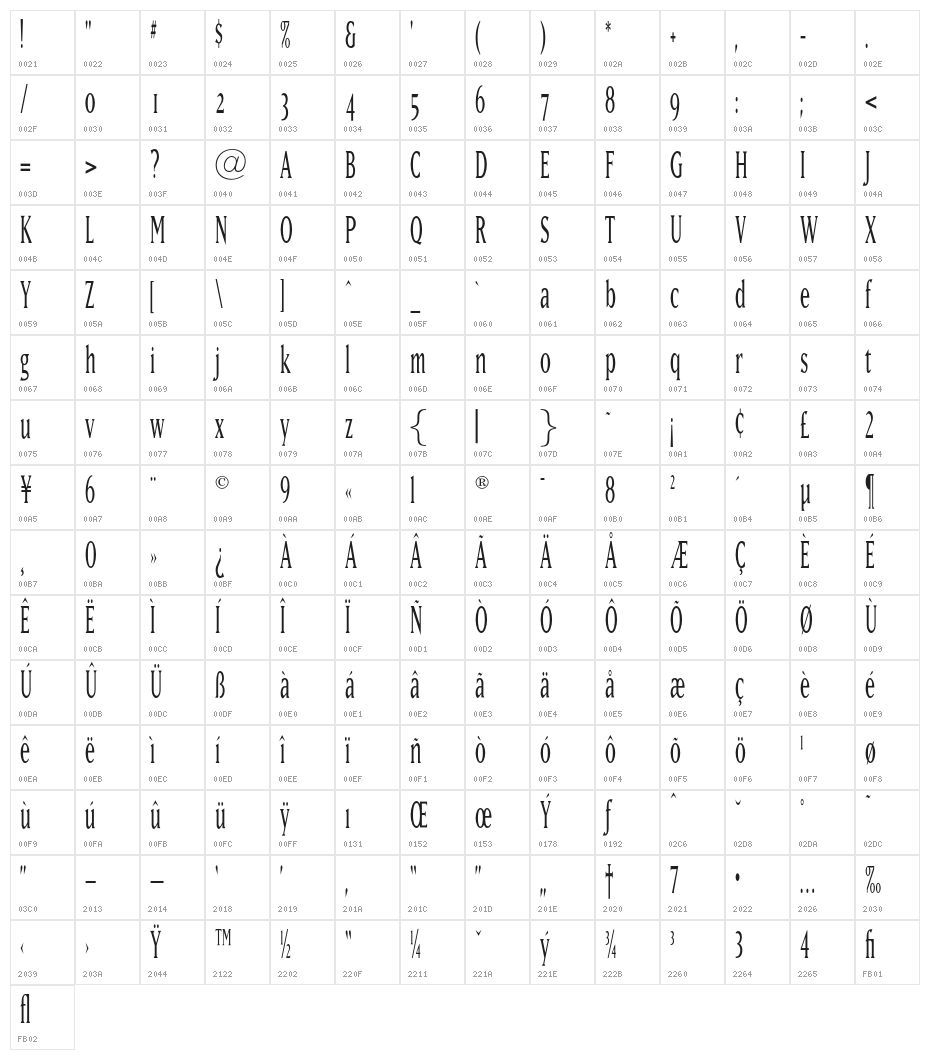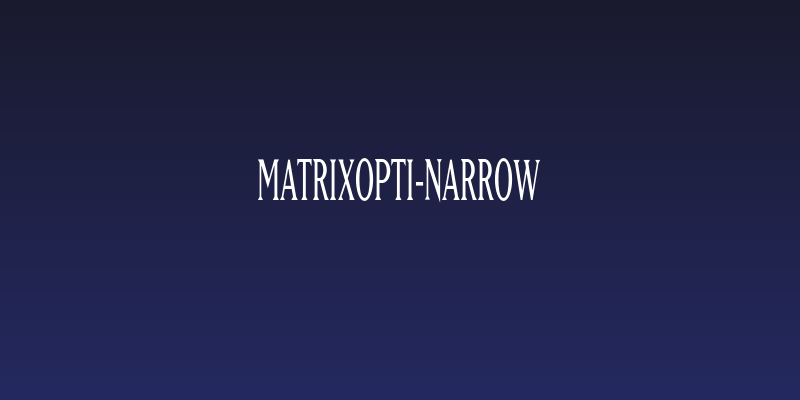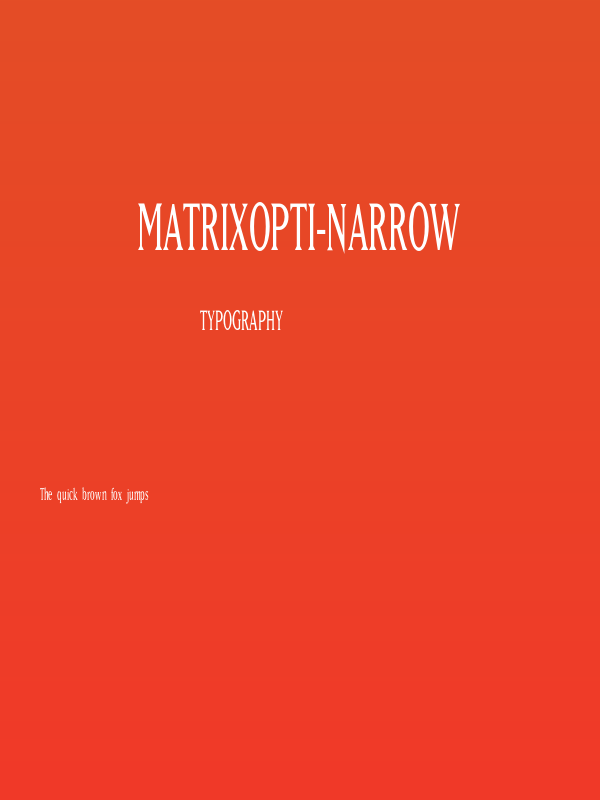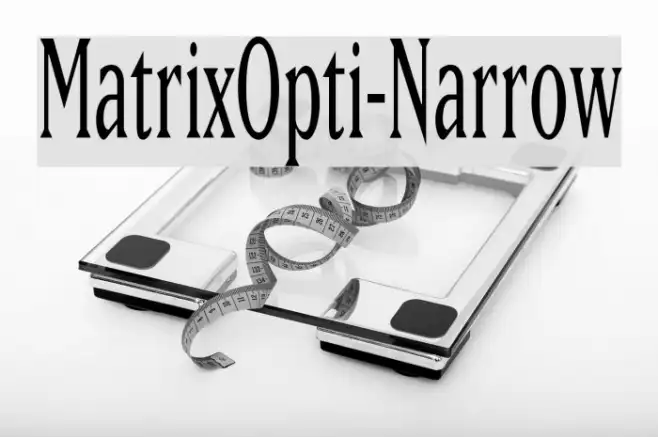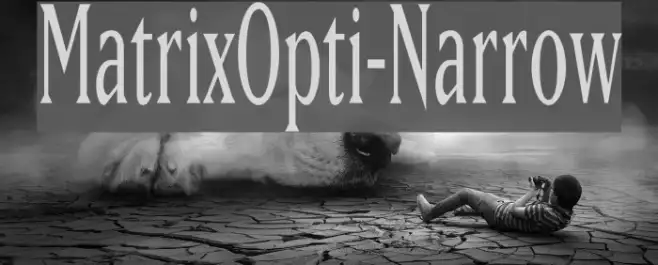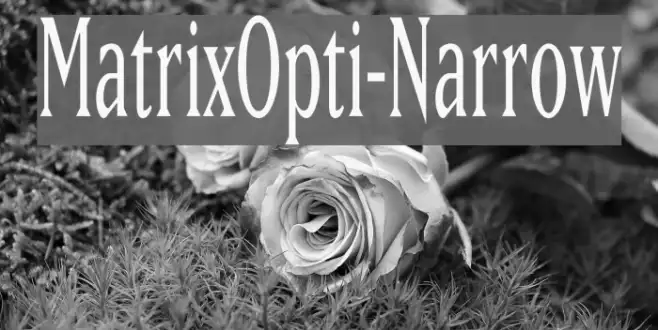
MatrixOpti-Narrow Font
MatrixOpti-Narrow Description
This font features a narrow and elegant design, characterized by its tall, slender letterforms and high contrast between thick and thin strokes. The serifs are sharp and pronounced, adding a touch of sophistication and classic appeal. The uppercase letters are particularly elongated, giving a sense of height and grandeur. The lowercase letters maintain a consistent style, with smooth curves and a refined appearance. The numerals are distinct and clear, matching the overall aesthetic of the alphabet. Special characters are well-integrated, ensuring versatility in various design applications.
| Use Case | Headlines, Logos, Editorial design |
| Proposed Projects | Ideal for editorial design, luxury branding, formal invitations, and elegant packaging. |